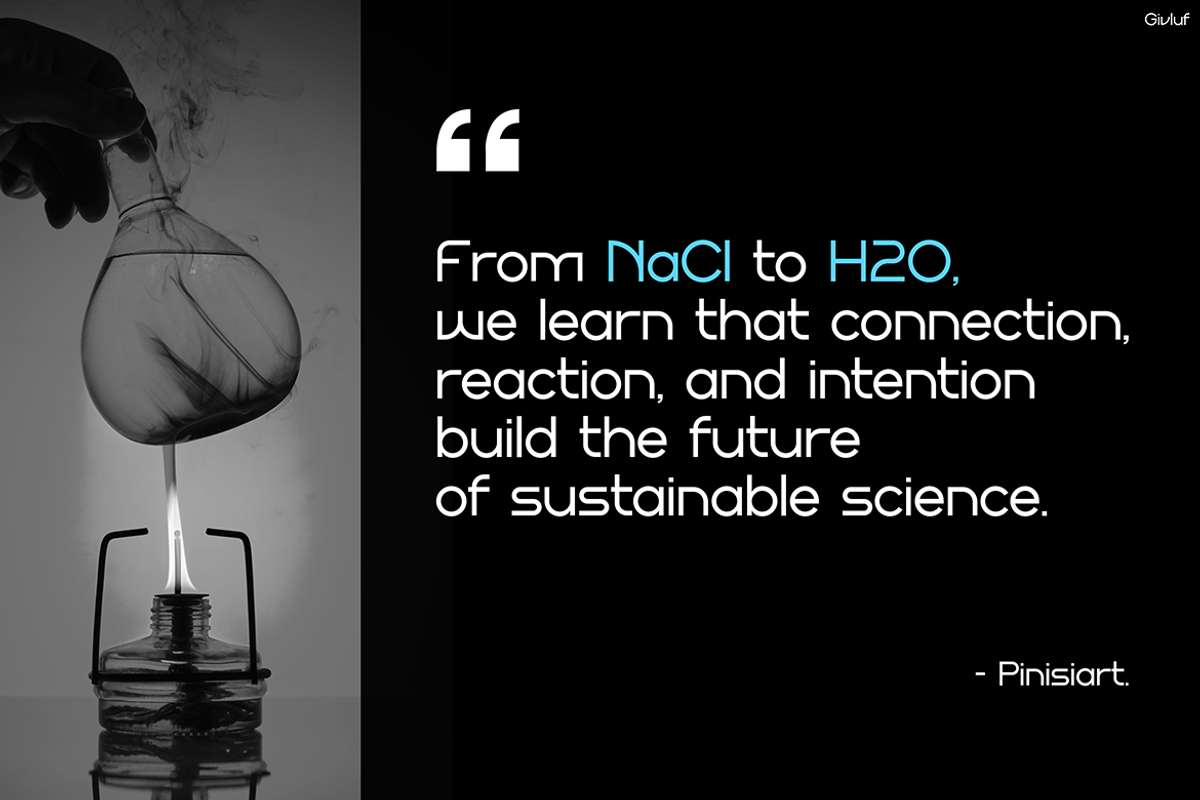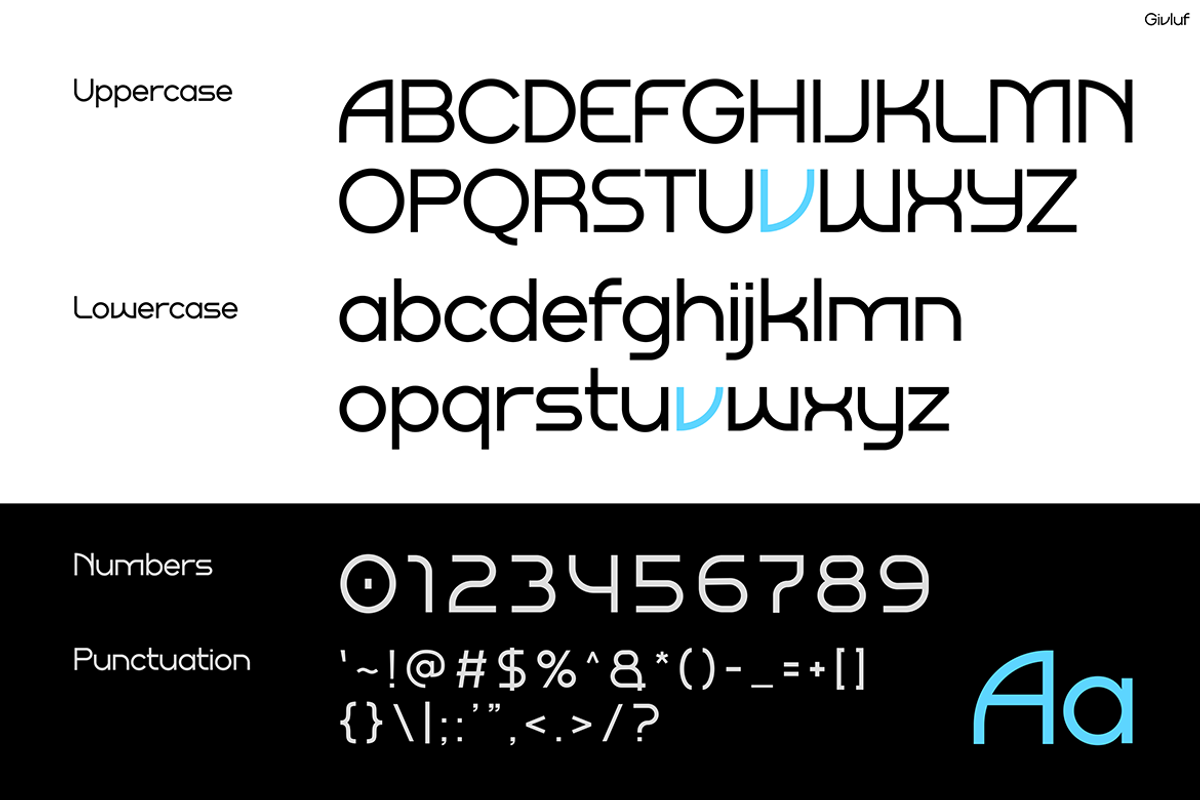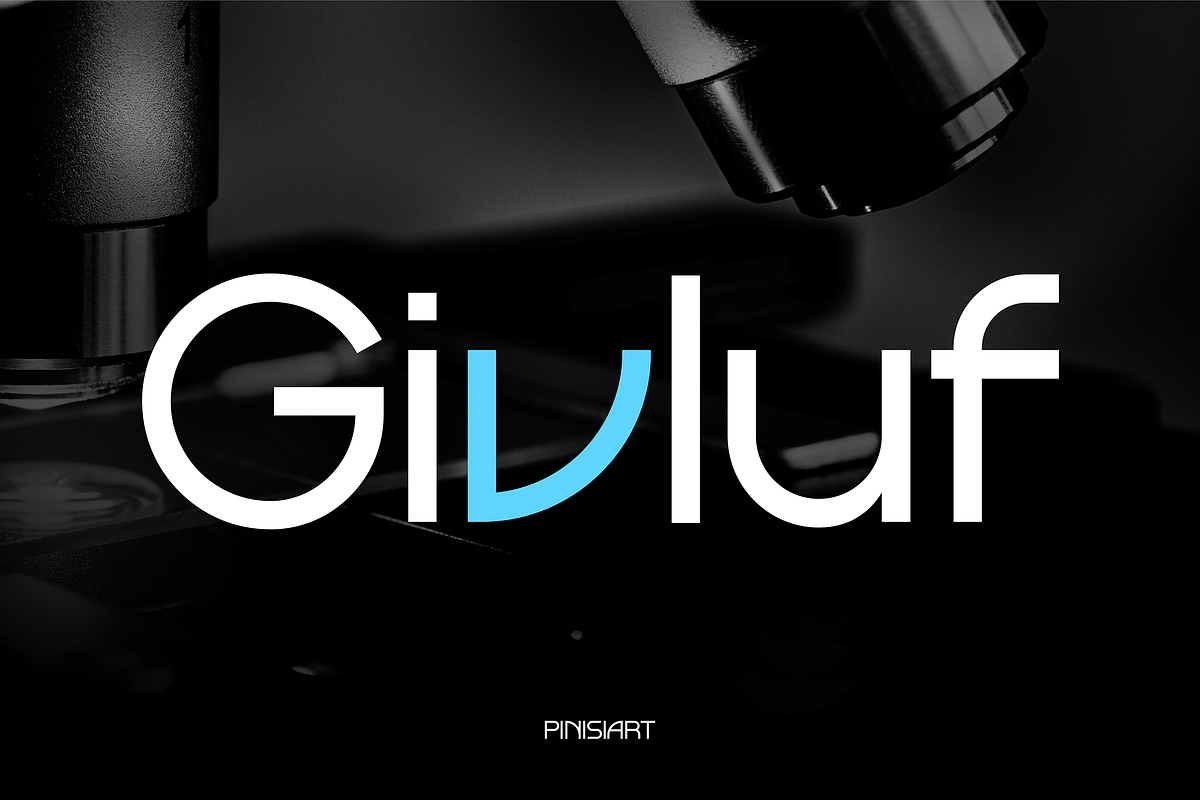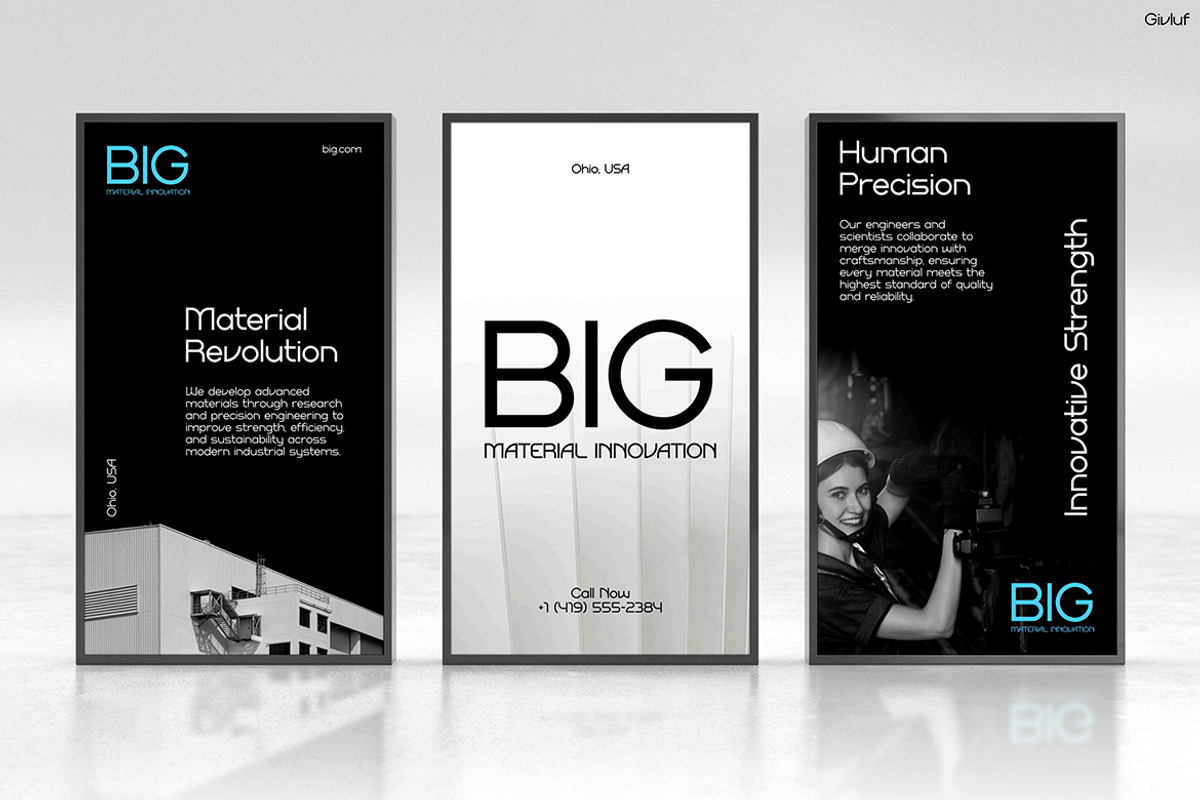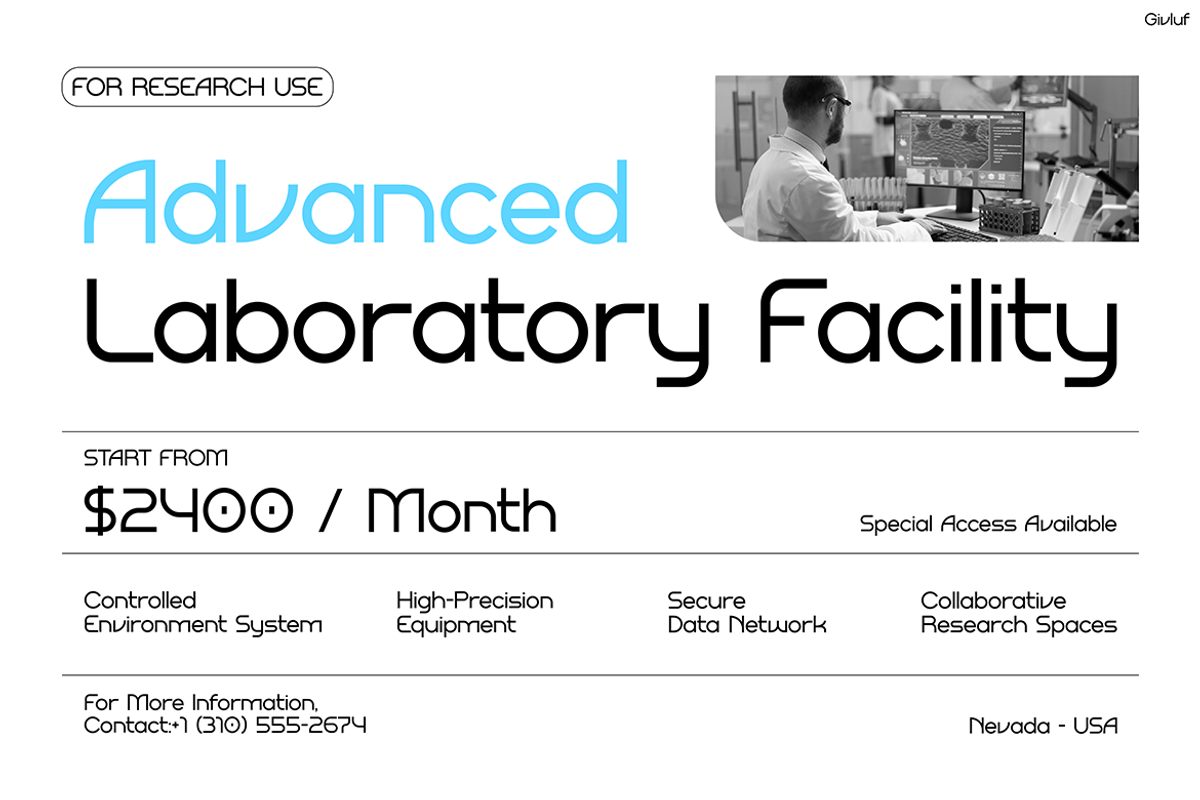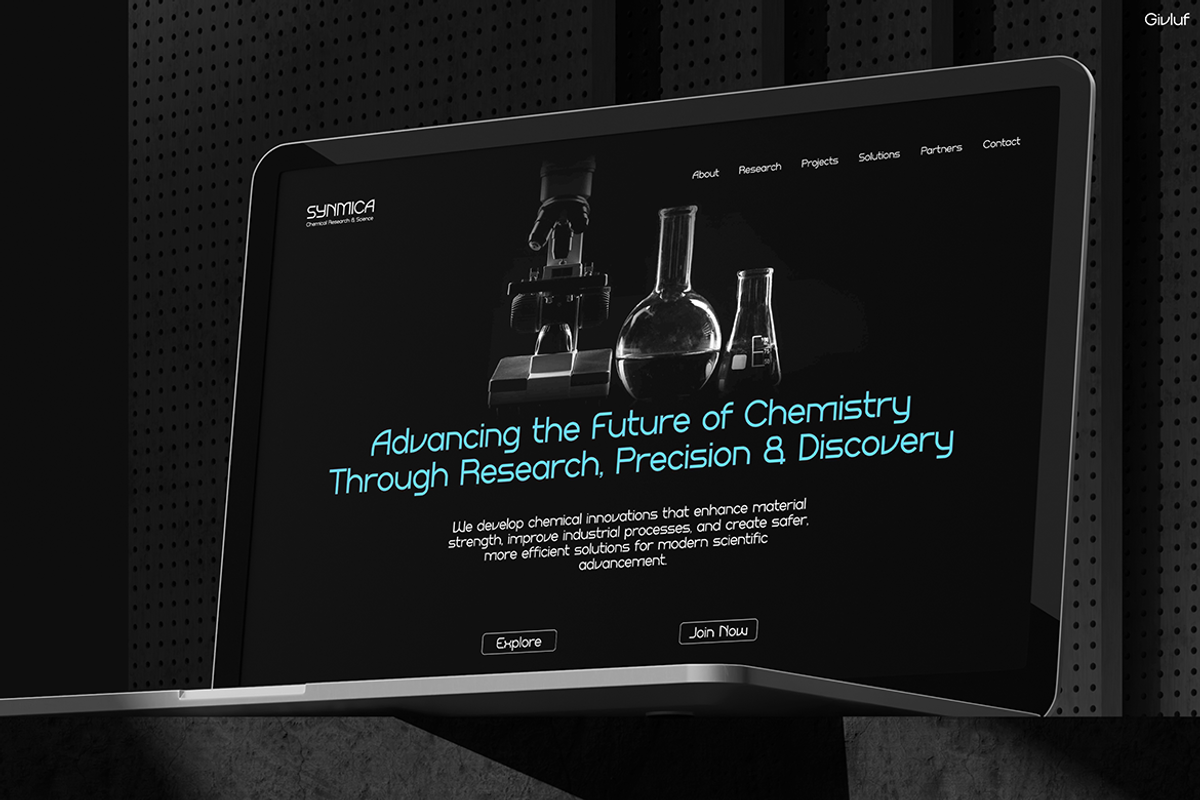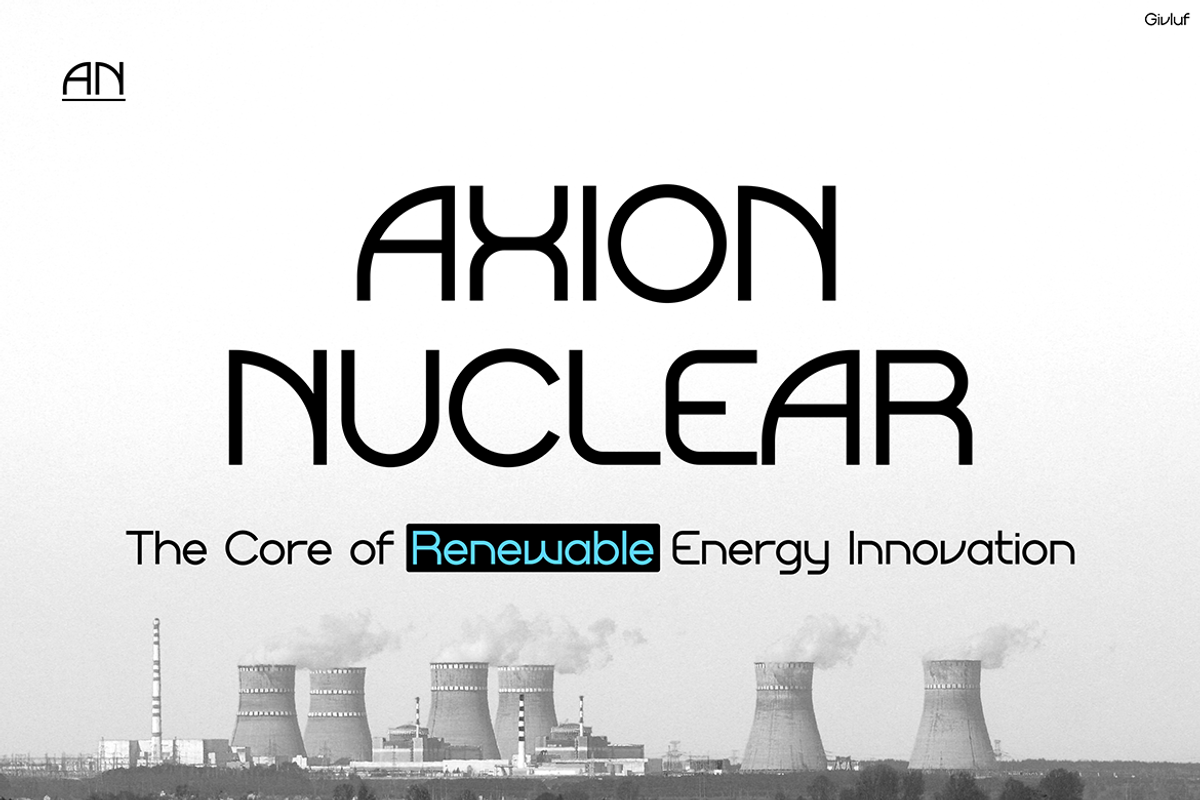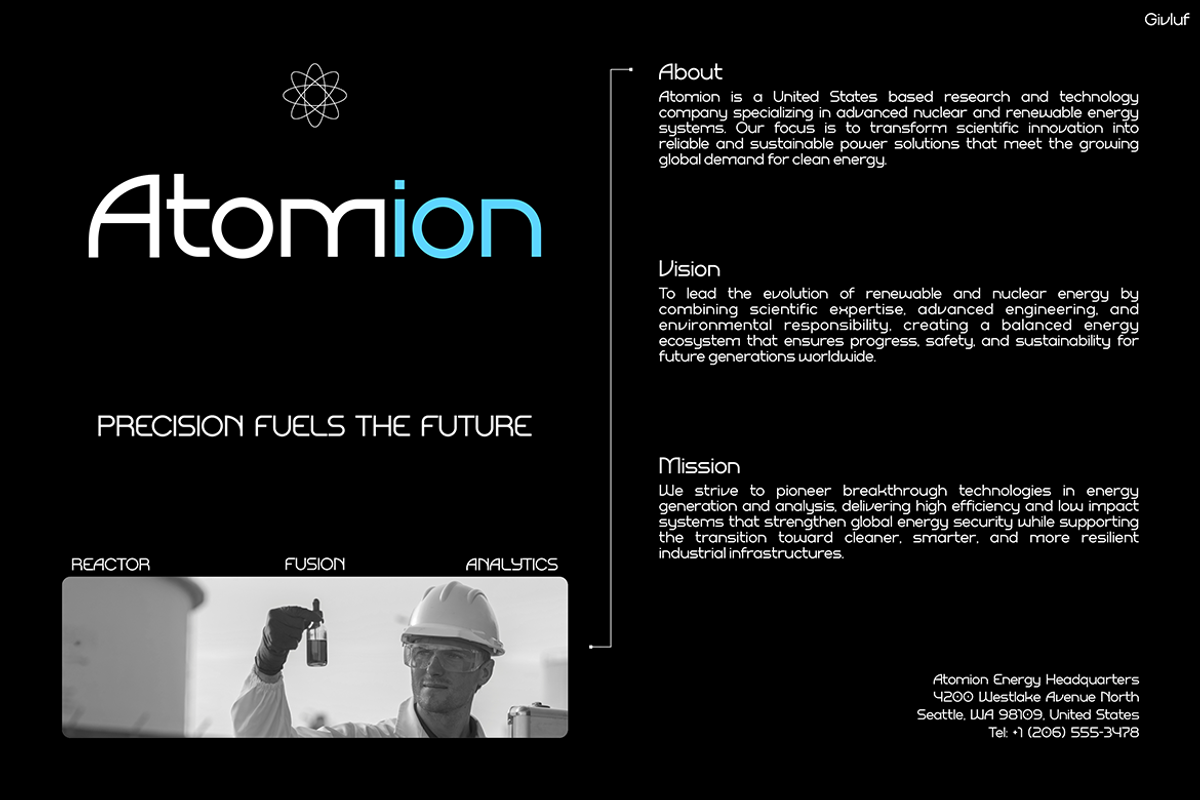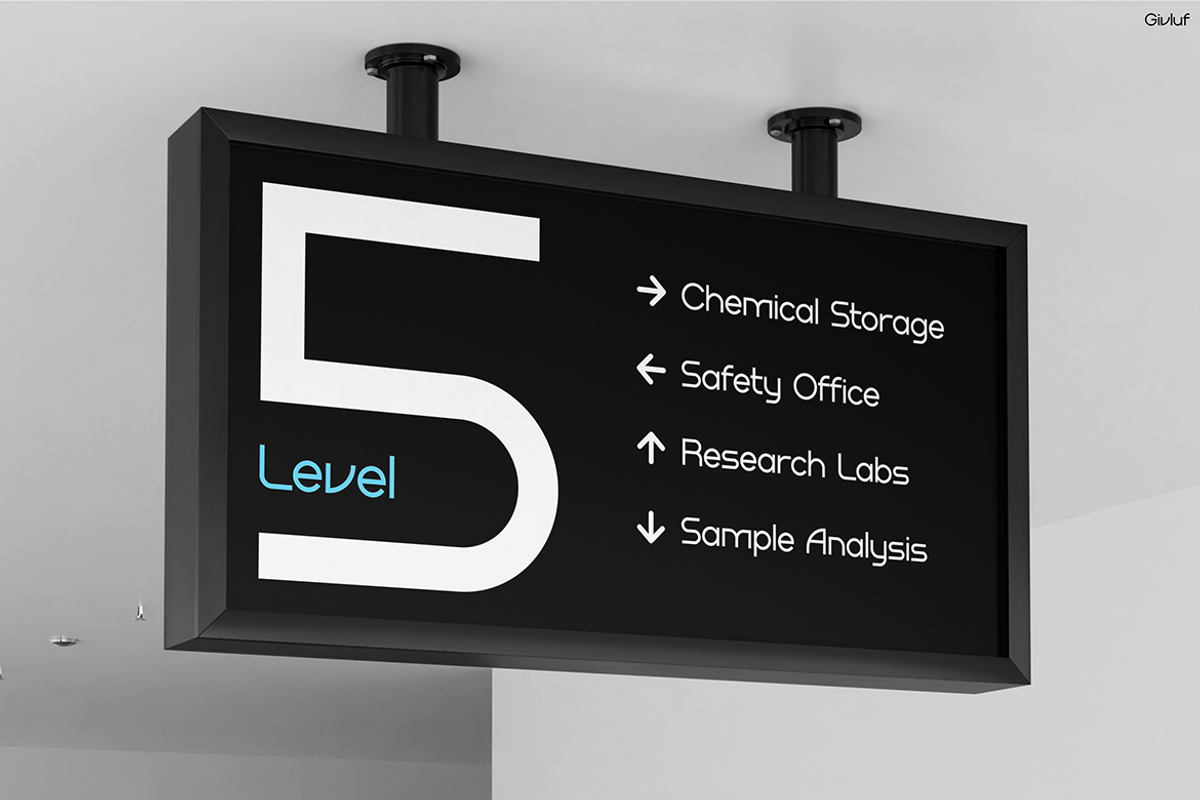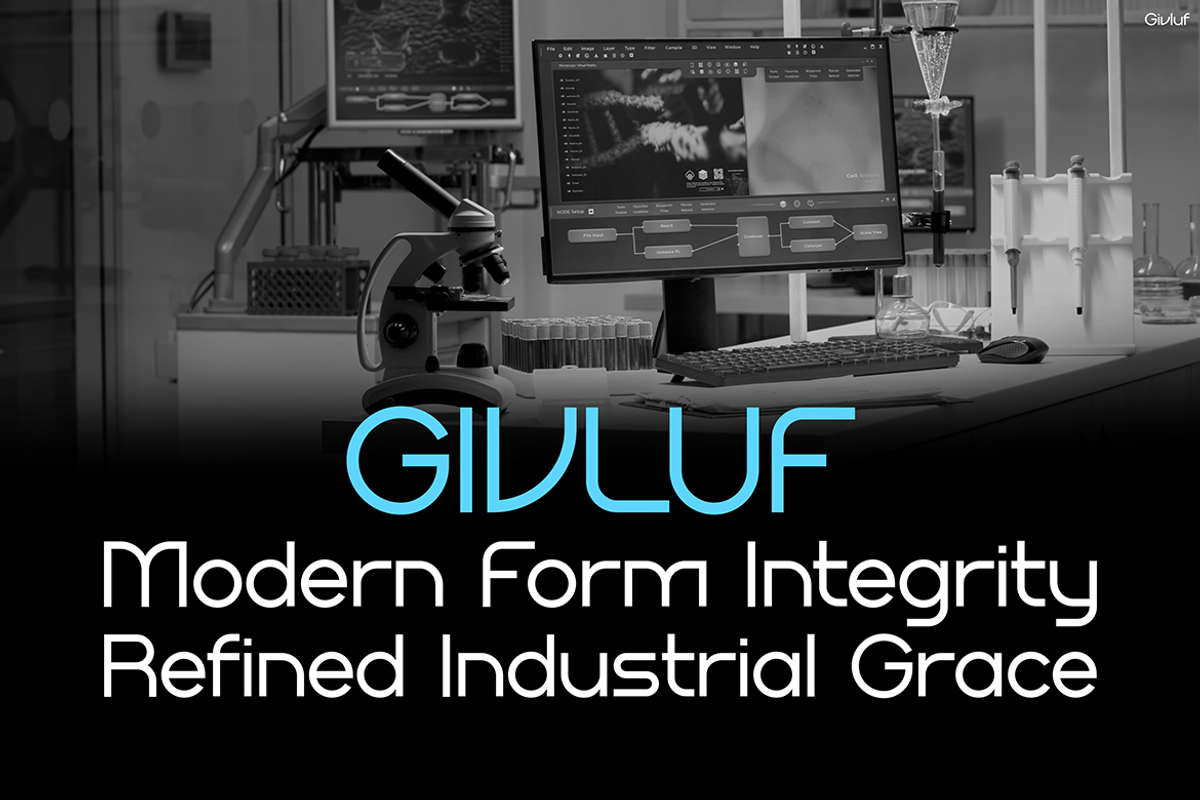
Givluf
Futuristic Font Givluf – Where Science Meets Sleek Design
Futuristic Font Givluf is more than just typography — it’s a forward-thinking expression of innovation and clarity. Inspired by the balance between technology and precision, this font merges scientific formality with modern minimalism. Its rounded edges, clean geometry, and refined rhythm create an elegant harmony that feels both futuristic and approachable. Moreover, its design reflects intelligence, order, and modern aesthetics, making it perfect for projects that seek visual sophistication.
Each character in Givluf is carefully crafted to achieve seamless readability while maintaining a unique futuristic touch. Because of its smooth balance and proportional construction, this font adapts effortlessly to both digital and print applications. Therefore, whether you are designing a modern logo, crafting tech-based branding, or creating editorial layouts, Givluf delivers a look that feels advanced yet timeless. Additionally, its subtle geometry ensures that every composition communicates precision and confidence.